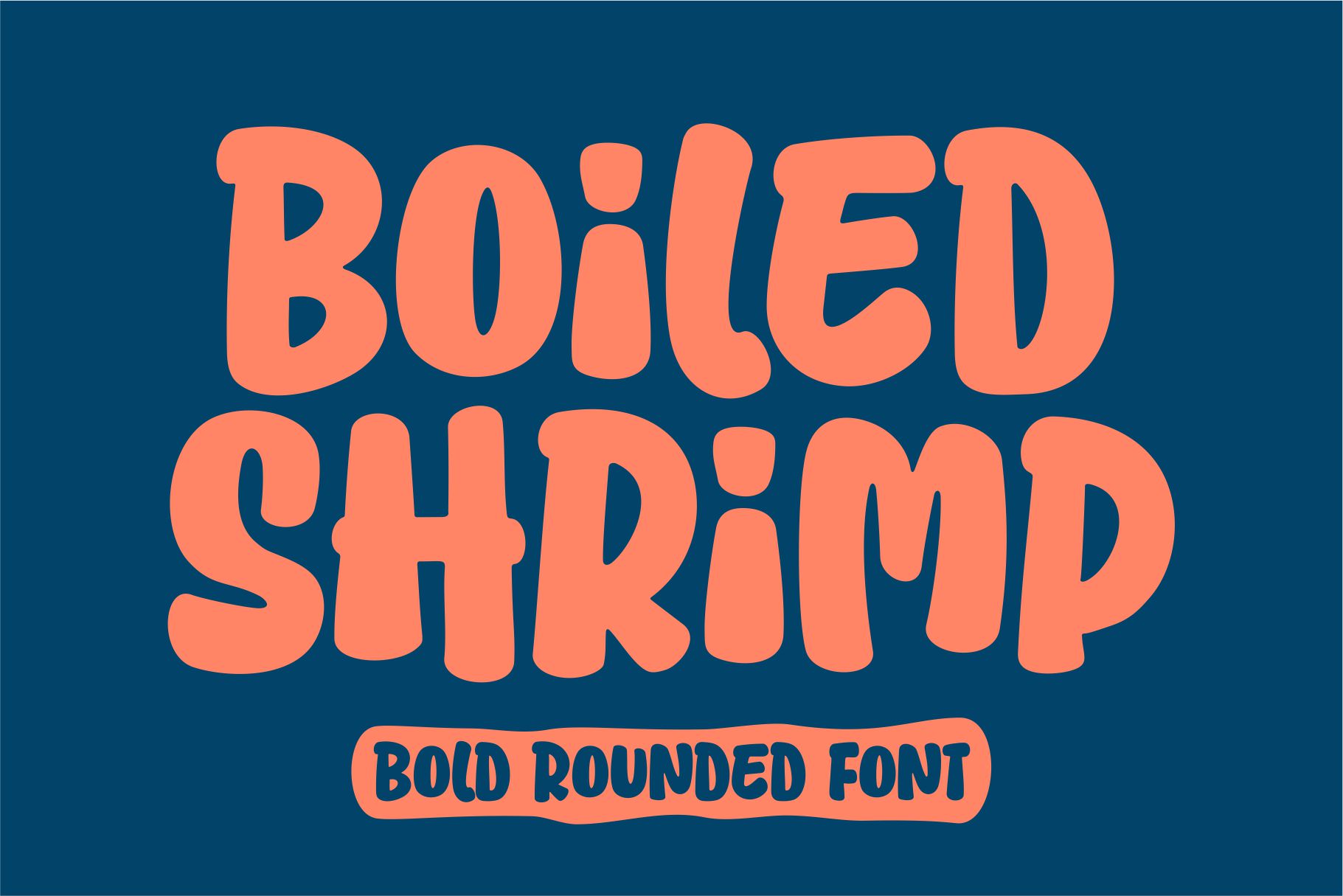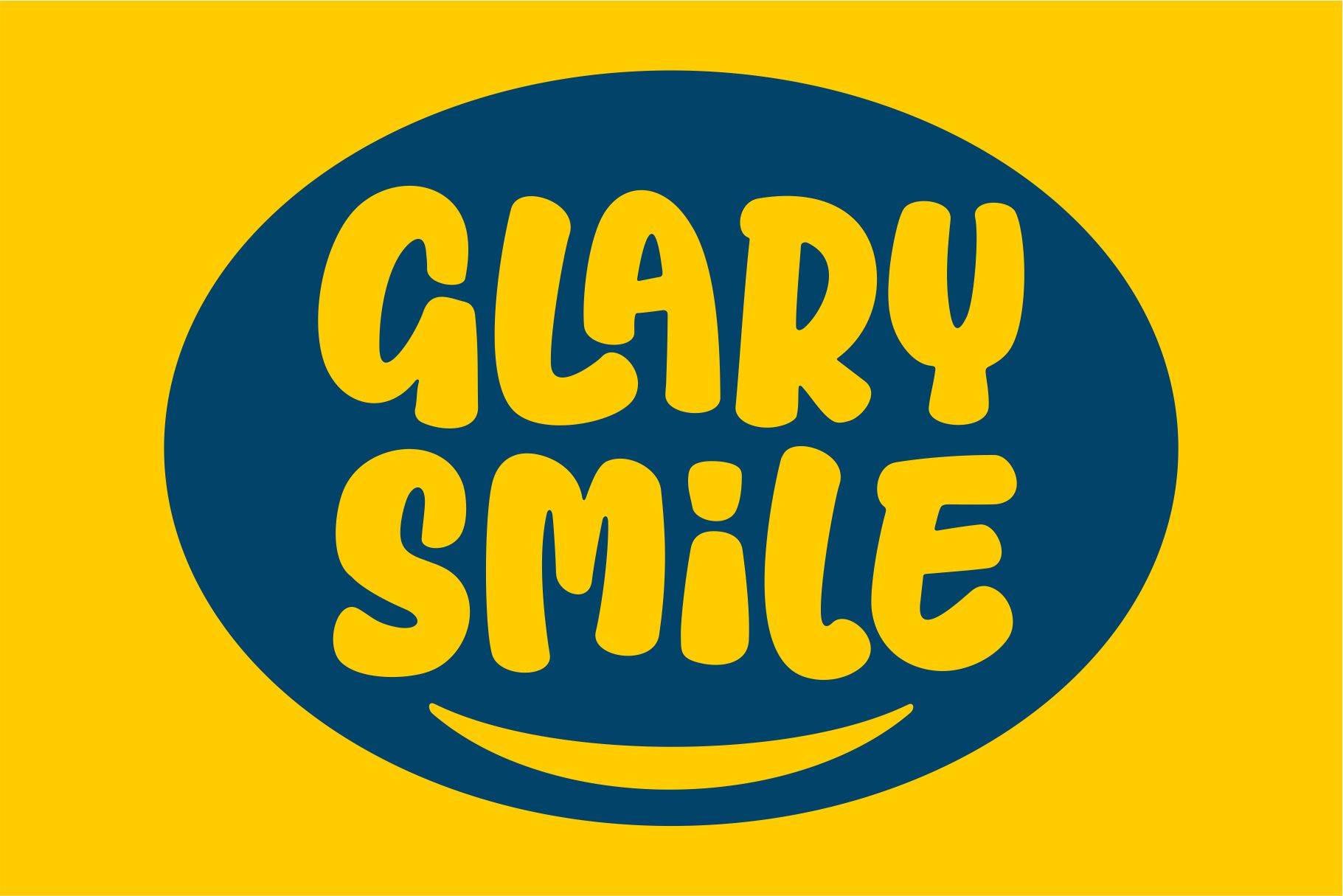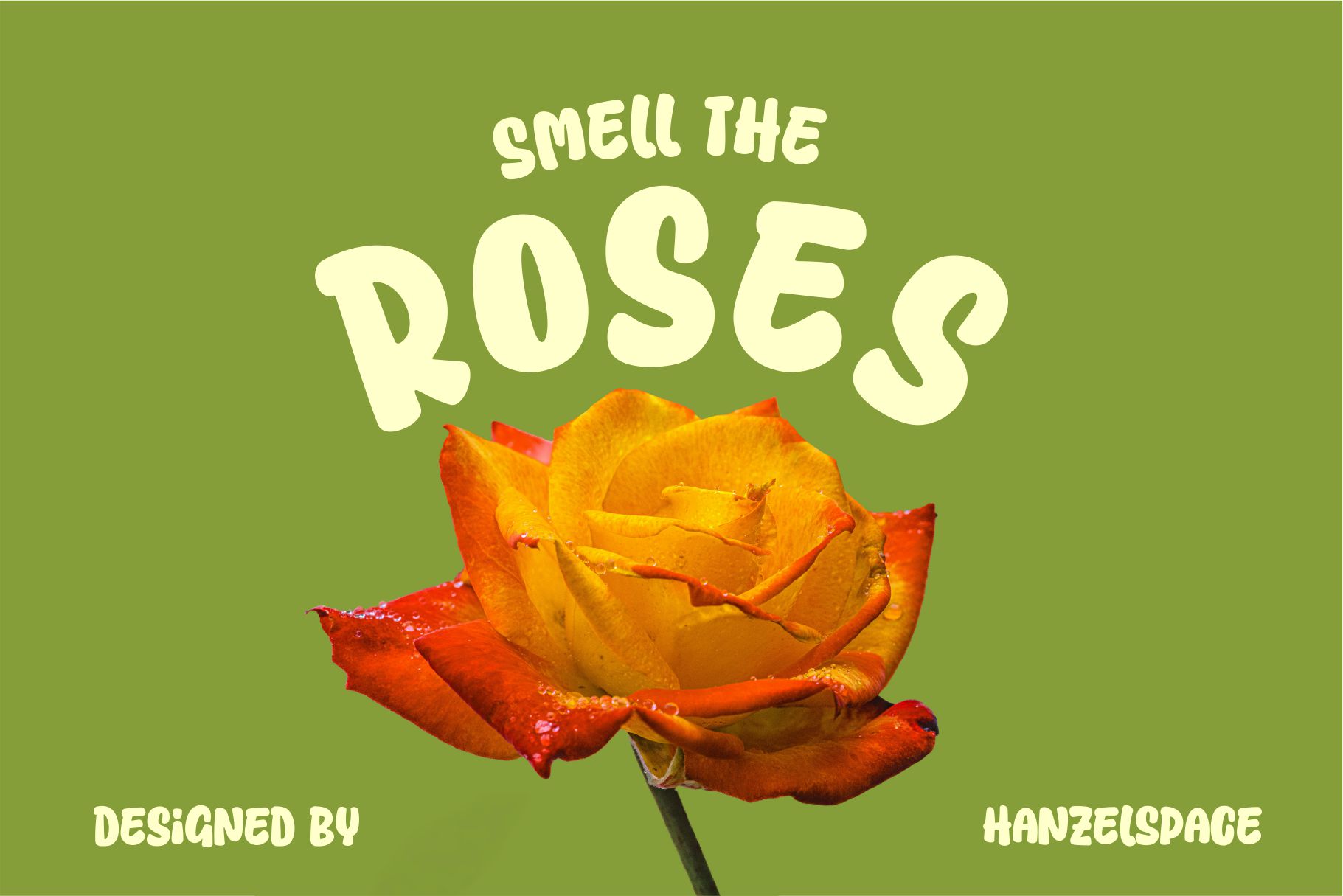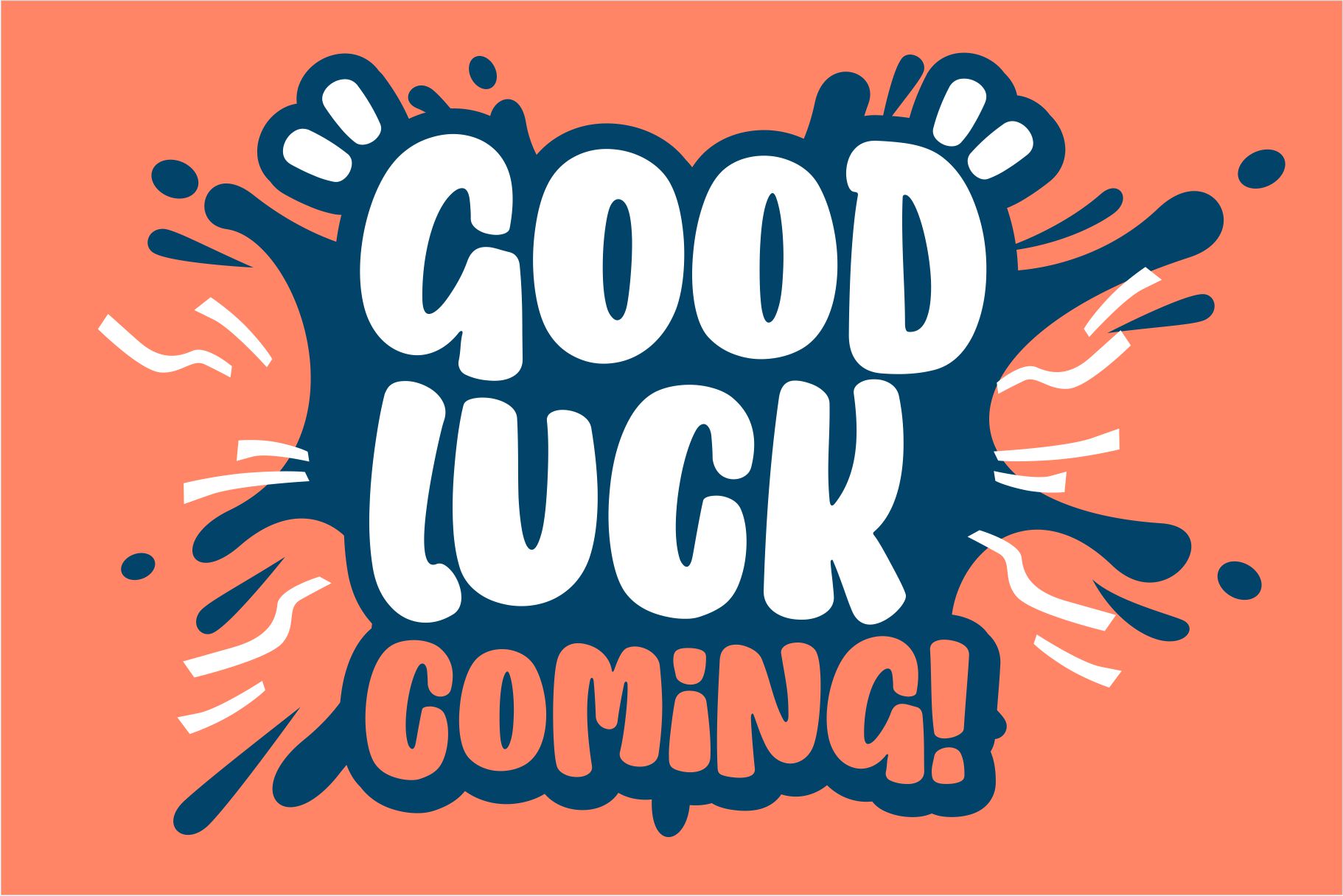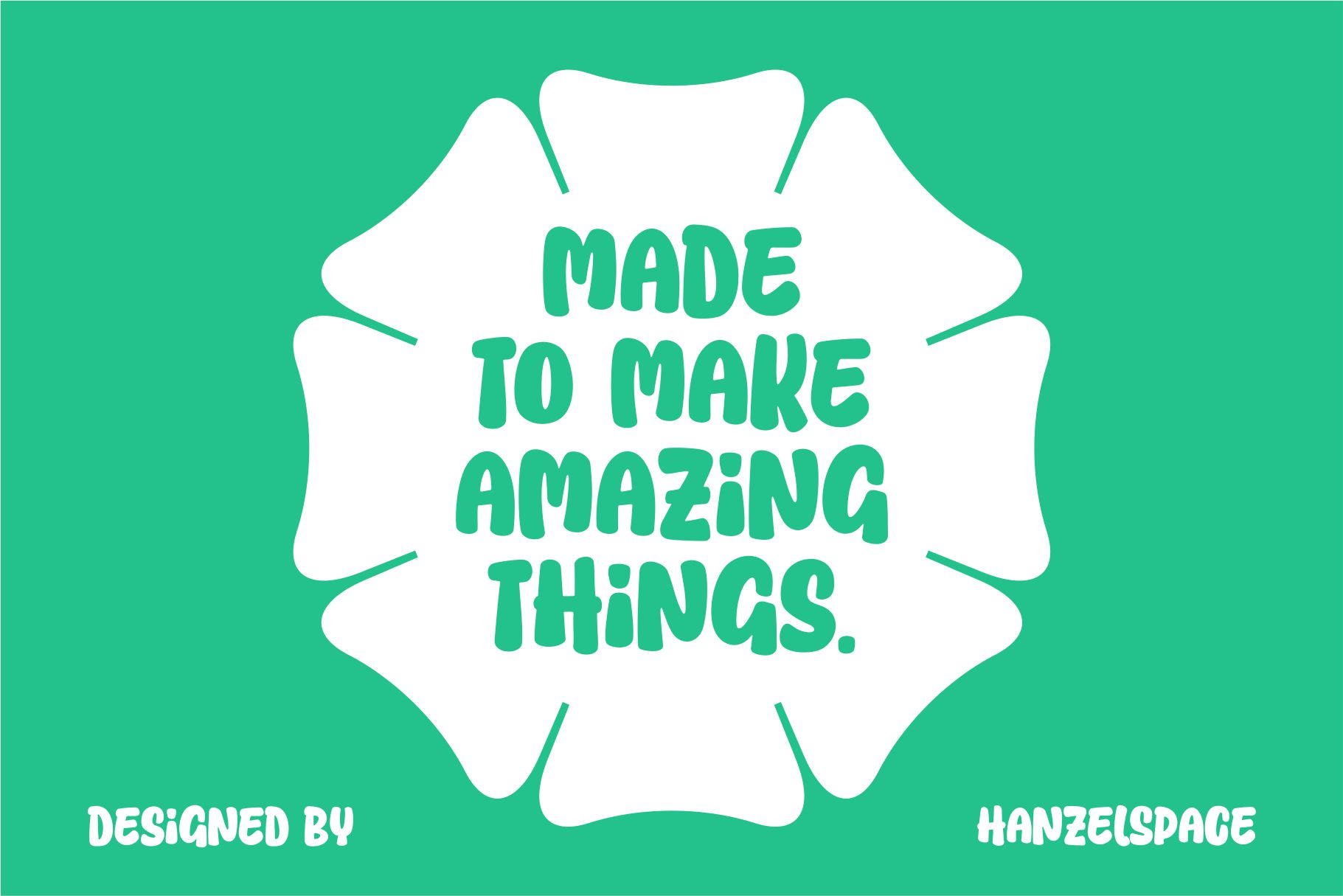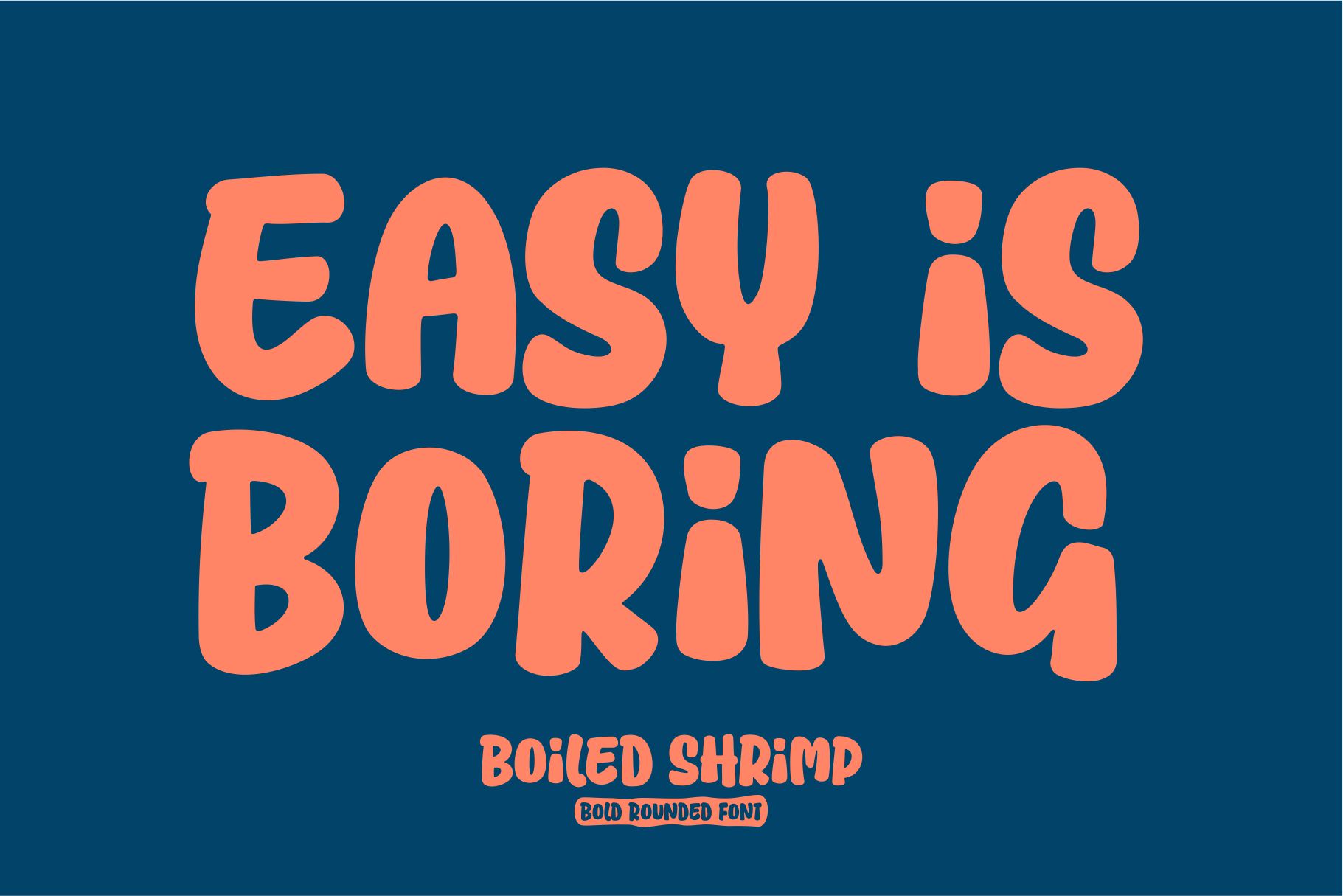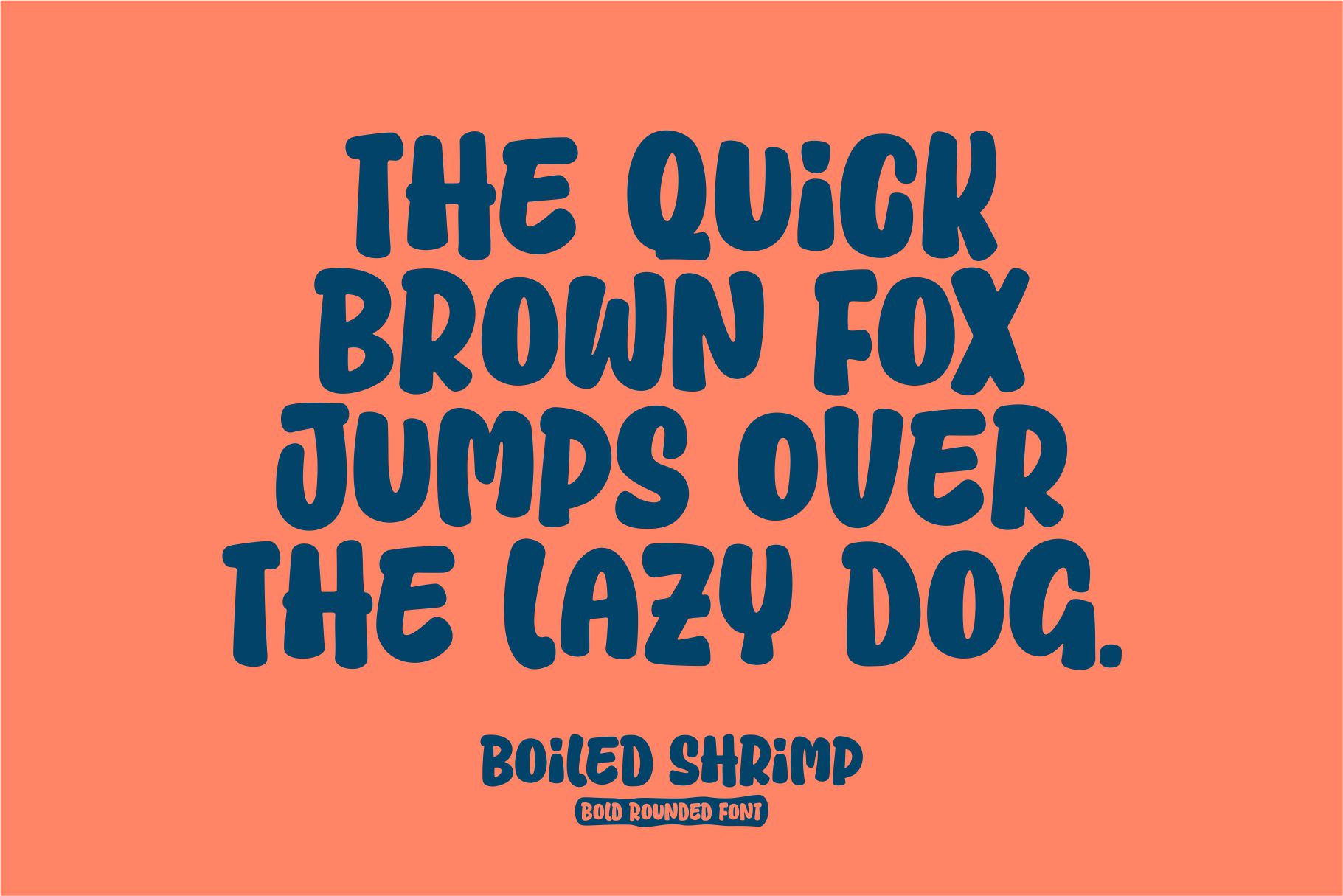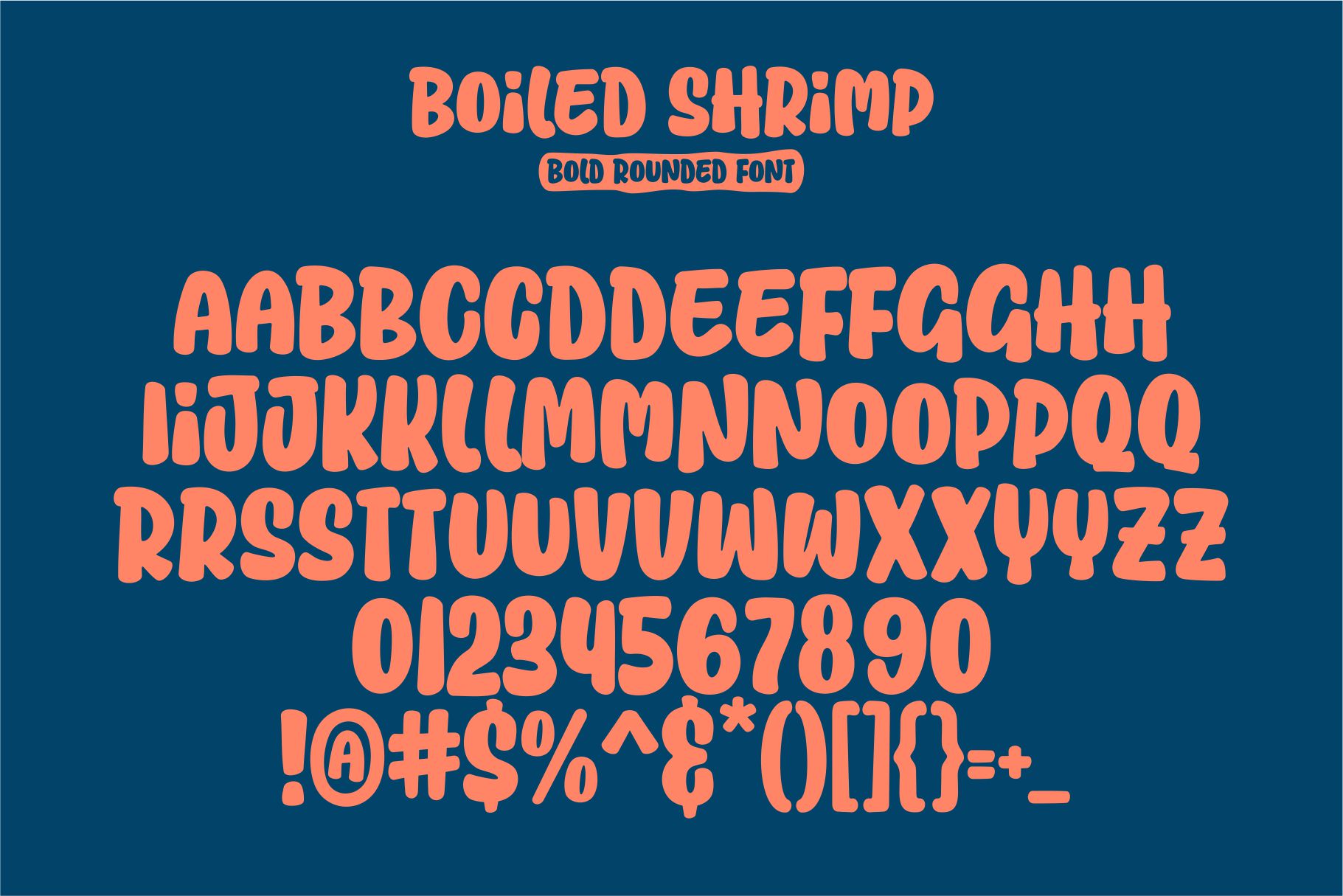
- Boiled Shrimp – Bold Rounded font
Boiled Shrimp! This is a handwritten font I created for unique characters. It’s slightly rounded and very beautiful. It includes alternate letters for uppercase and lowercase letters Aa-Zz. It looks great for logos, quotes, art, signage, titles, packaging, label and any handcrafted touch. Enjoy!
- Uppercase & Lowercase
- Numerals & Punctuation
- Multilanguage Supports